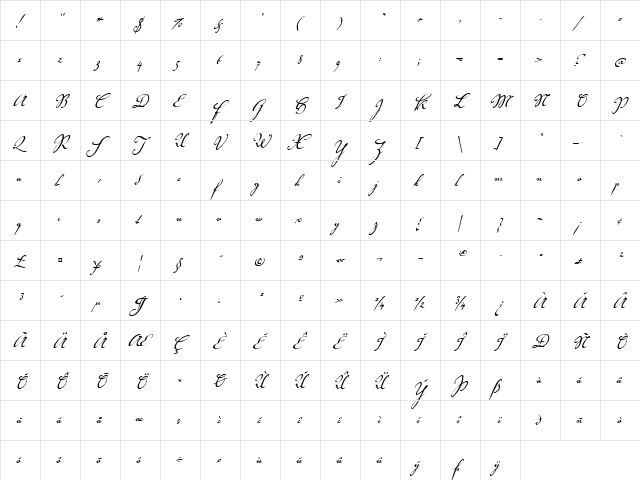
VolutaScript Regular
Design Context for VolutaScript Typeface
VolutaScript flows with the natural rhythm of handwritten lettering, making it ideal for designs that call for warmth and personal expression.
Font Pairing: Combine VolutaScript with a simple geometric sans for maximum contrast — the tension between flowing curves and clean structure is a classic typographic pairing.
Pro Tip: Pair VolutaScript with a clean sans-serif for supporting text. The contrast between fluid script and geometric structure creates an elegant typographic hierarchy.